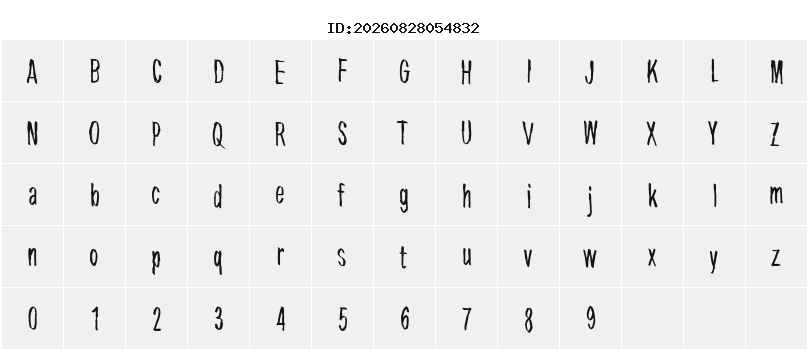
Tremolo Flaw Preview
• Font Name: Tremolo Flaw
• Full Font Name: Tremolo Flaw
About Tremolo Flaw.ttf
Tremolo Flaw.ttf is a modern, elegant sans-serif font designed for ultimate readability and visual harmony. Perfect for branding, headlines, web design, and print materials.